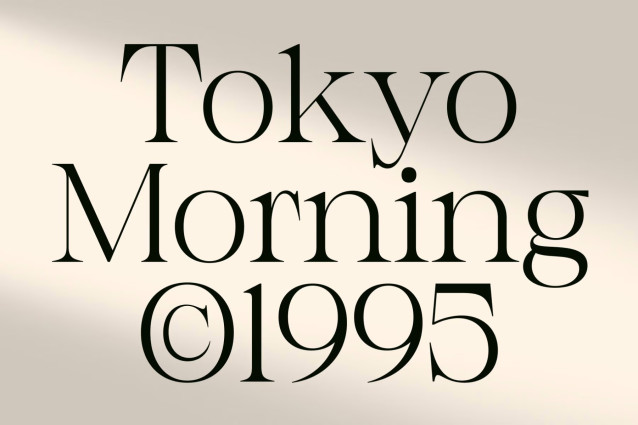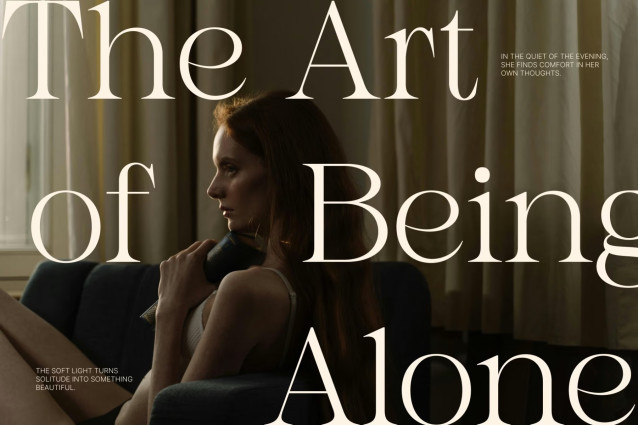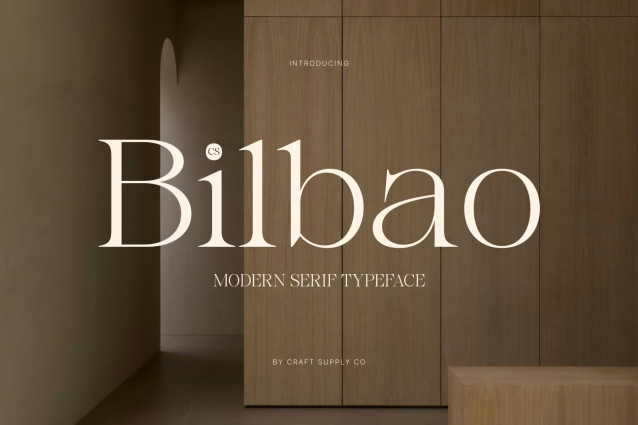
CS Bilbao – Modern Serif Font
CS Bilbao – Modern Serif Font: Where Slender Elegance Meets Contemporary Luxury
Slim Proportions with Graceful Elongated Serifs
This is a modern serif font designed with slim proportions and elegant elongated serifs, creating a refined visual identity that feels sophisticated, graceful, and timeless. Its slender letterforms bring a sense of lightness and precision, while the extended serif details add a luxurious character that enhances every composition with understated elegance.
Contemporary Style with Timeless Appeal
This font presents a clean and balanced aesthetic suitable for premium design. Its carefully crafted proportions and subtle contrast create a harmonious rhythm, allowing the font to remain highly readable while expressing a polished, high-end personality. The result is typography that feels both current and enduring.